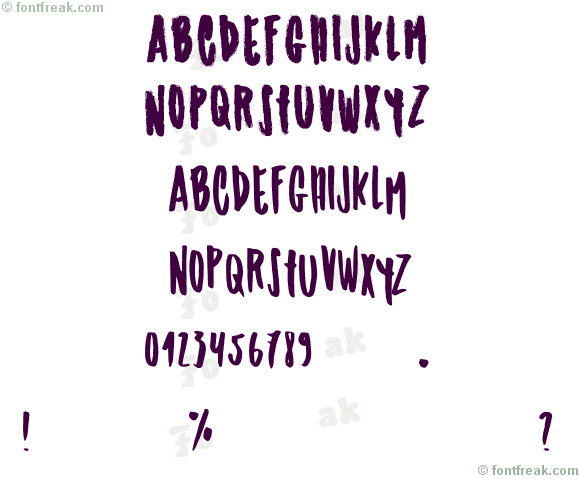
Taramda
Taramda, designed by Leonard Posavec, is a unique handwritten font that captures the essence of personal expression. This freeware typeface features a casual and artistic style, making it ideal for creative projects that require a touch of authenticity. With its irregular stroke weight and playful character forms, Taramda offers a charming contrast that draws the eye, while its slightly varying spacing enhances its handwritten appeal.
Visually, Taramda stands out with its fluid lines and organic shapes. The strokes exhibit a delightful mix of thickness, giving the font a dynamic feel that feels both lively and approachable. The decorative elements, including subtle flourishes, add a personal touch without overwhelming the overall design. This balance makes Taramda versatile enough for various applications, lending itself perfectly to wedding invitations, where its romantic flair can create an intimate atmosphere. Additionally, it shines in branding materials for small businesses, such as artisan cafes or boutique shops, where a friendly and inviting tone is essential. Movie posters can also benefit from Taramda’s artistic vibe, helping to evoke emotions and intrigue potential viewers.
The target audience for Taramda includes graphic designers looking to add a unique font to their toolkit, small business owners aiming to create memorable branding, and content creators seeking to enhance their visual storytelling.
What sets the Taramda font apart is its ability to convey warmth and creativity, making it a standout choice for anyone wanting to infuse their projects with personality. Whether you're working on digital designs or printed materials, Taramda font free download provides an accessible option for those who wish to elevate their work with an inviting, handwritten aesthetic.